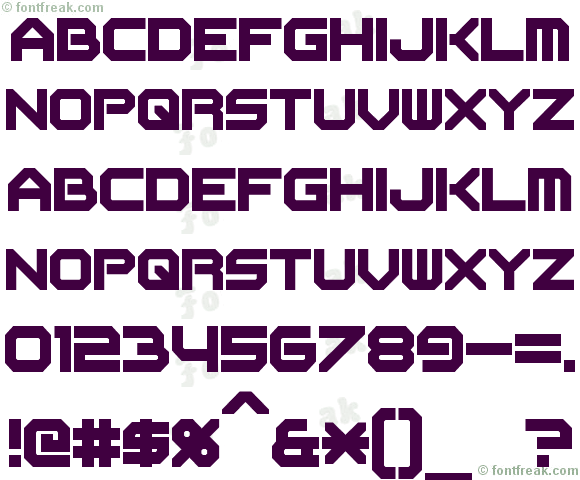
Flipbash
The Flipbash font, designed by Neale Davidson in 2012, is a captivating display typeface that combines modern flair with a playful aesthetic. This font is categorized as a decorative typeface, making it an excellent choice for eye-catching designs. Its unique visual characteristics are defined by bold strokes and a dynamic structure, which create an engaging contrast that draws attention. The spacing is well-balanced, ensuring that each character stands out while maintaining a cohesive look, perfect for various design applications.
Flipbash is particularly suited for use in creative projects where personality and vibrancy are essential. It works wonderfully for restaurant menus, where it can make dish names pop and add a fun twist to the overall presentation. Additionally, this font is ideal for movie posters, where its distinctive style can convey the essence of the film and attract potential viewers. Wedding invitations can also benefit from Flipbash’s playful charm, adding a unique touch that reflects the couple's personality. Moreover, it serves as an excellent choice for social media graphics, allowing content creators to captivate their audience with striking visuals.
The target audience for the Flipbash font includes graphic designers, small business owners, and content creators looking for a versatile typeface that stands out. Whether you are designing for print or digital platforms, Flipbash offers a refreshing alternative to traditional fonts, allowing for creative expression and memorable branding.
In conclusion, the Flipbash font free download is a fantastic resource for those seeking a lively and engaging typeface. Its unique characteristics and versatility make it a standout choice for a variety of design projects, ensuring that your work will leave a lasting impression.